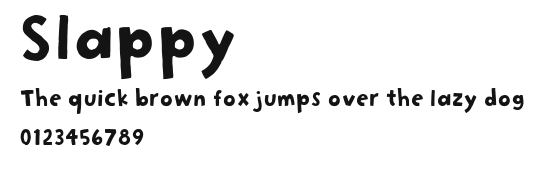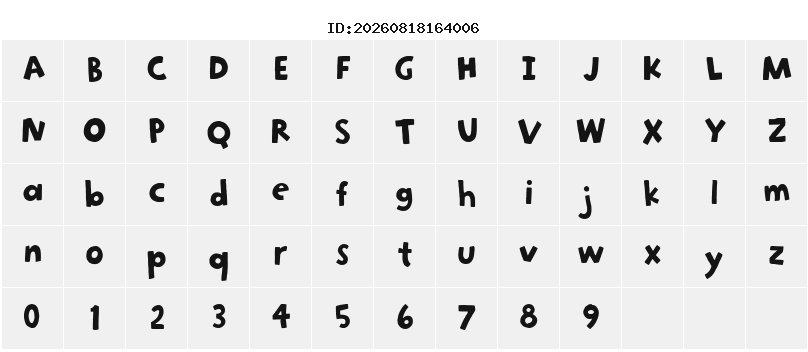
• Font Name: Slappy
• Font Style: Inline
• Font ID: Macromedia Fontographer 4.1 Slappy Inline
• Full Font Name: Slappy Inline
• Version: Macromedia Fontographer 4.1 10/23/2002
• PostScript Name: SlappyInline
• Character Count: 207
About Slappy.ttf
Slappy.ttf is a modern, elegant sans-serif font designed for ultimate readability and visual harmony. Perfect for branding, headlines, web design, and print materials.